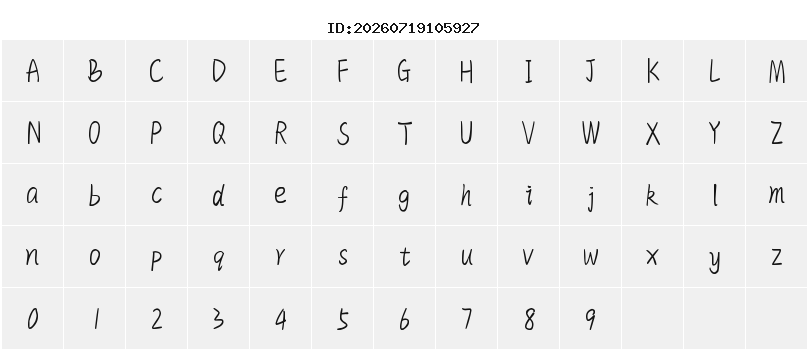
• Font Name: YEFONTQingMeiShouJi 標準
• Full Font Name: 也字工厂青梅手迹 标准
• Manufacturer: 也字工厂
About YEFONTQingMeiShouJi 標準.TTF
YEFONTQingMeiShouJi 標準.TTF is a modern, elegant sans-serif font designed for ultimate readability and visual harmony. Perfect for branding, headlines, web design, and print materials.